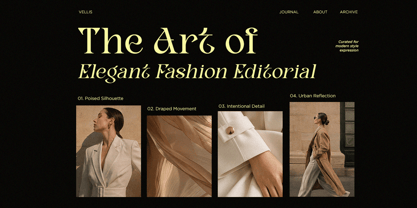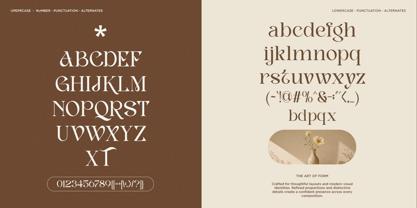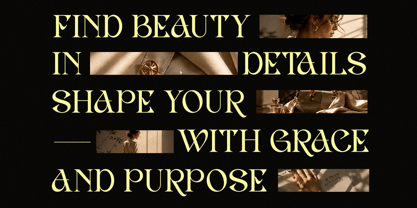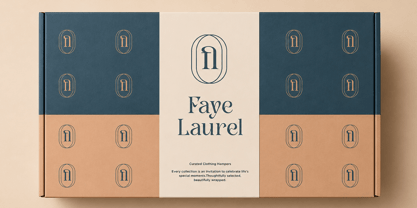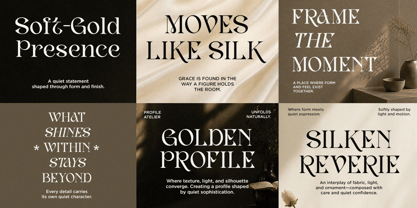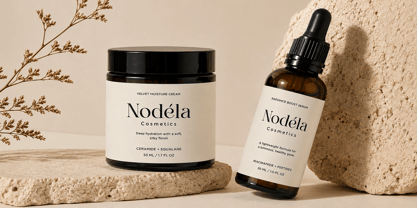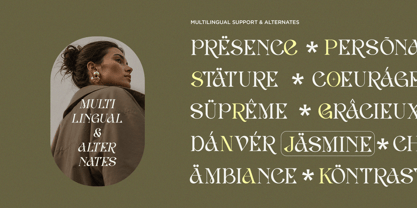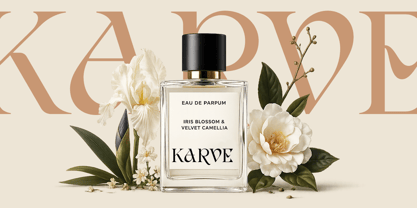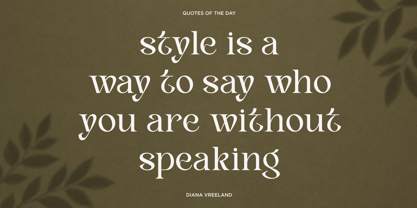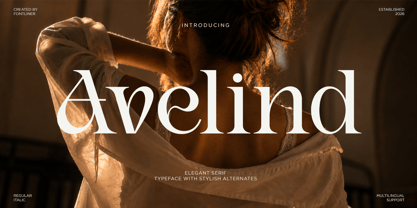
Avelind
Avelind is an elegant serif typeface crafted to bring timeless sophistication and refined luxury to every creative project. Featuring graceful letterforms, stylish alternates, and delicate ligatures, this font creates a high-end aesthetic that feels both classic and contemporary. Every character is designed with balanced proportions and artistic details, making it perfect for premium visual identities.
Whether you're designing luxury branding, fashion editorials, cosmetic packaging, wedding stationery, logos, magazines, social media content, or upscale product presentations, Avelind delivers a distinctive and memorable typographic presence. Its versatile style allows it to perform beautifully in both large display headlines and elegant branding applications.'
With multilingual support, uppercase and lowercase characters, punctuation, numerals, stylistic alternates, and ligatures, Avelind provides everything you need to create sophisticated designs that stand out with effortless elegance.
Features :
• Regular and Italic
• Stylistic Alternates
• Uppercase and Lowercase
• Number, Symbol, and Punctuation
• Multilungual Support